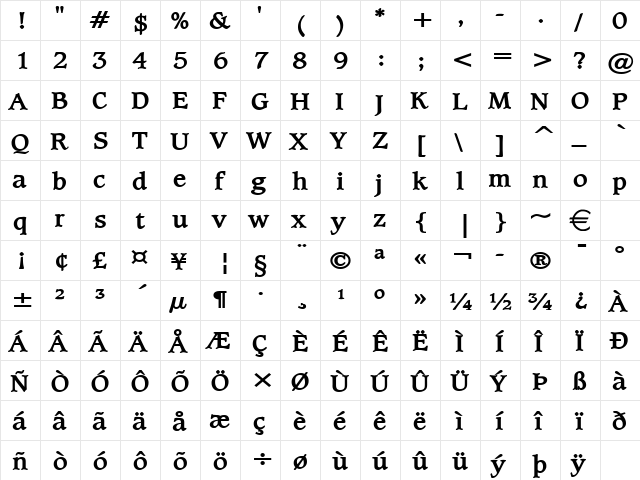
ClaytonWide Bold Font Preview
ClaytonWide Bold
Design Context for ClaytonWide Typeface
ClaytonWide is a composed and adaptable typeface that performs quietly and consistently across a wide range of design contexts. Its bold stroke weight gives it real presence on the page.